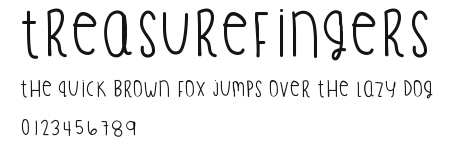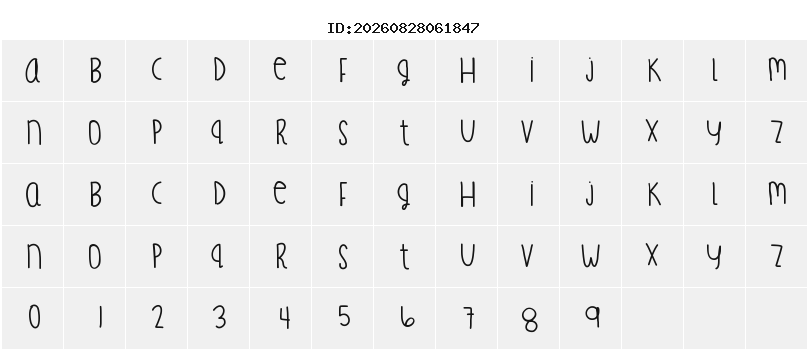
TreasureFingers Preview
About TreasureFingers.ttf
TreasureFingers.ttf is a modern, elegant sans-serif font designed for ultimate readability and visual harmony. Perfect for branding, headlines, web design, and print materials.